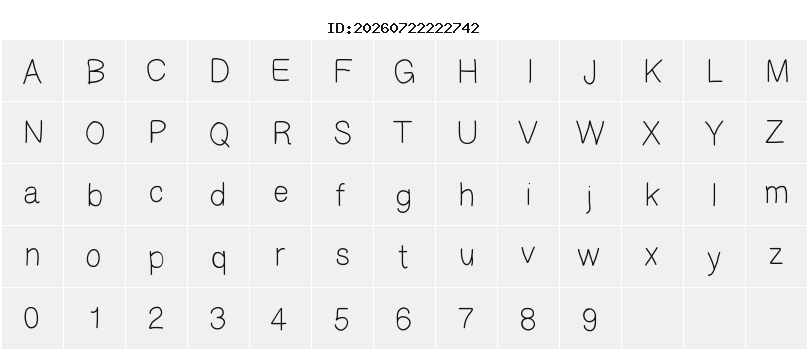
MoreLetters Preview
• Font Name: MoreLetters
• Full Font Name: MoreLetters
About MoreLetters.ttf
MoreLetters.ttf is a modern, elegant sans-serif font designed for ultimate readability and visual harmony. Perfect for branding, headlines, web design, and print materials.